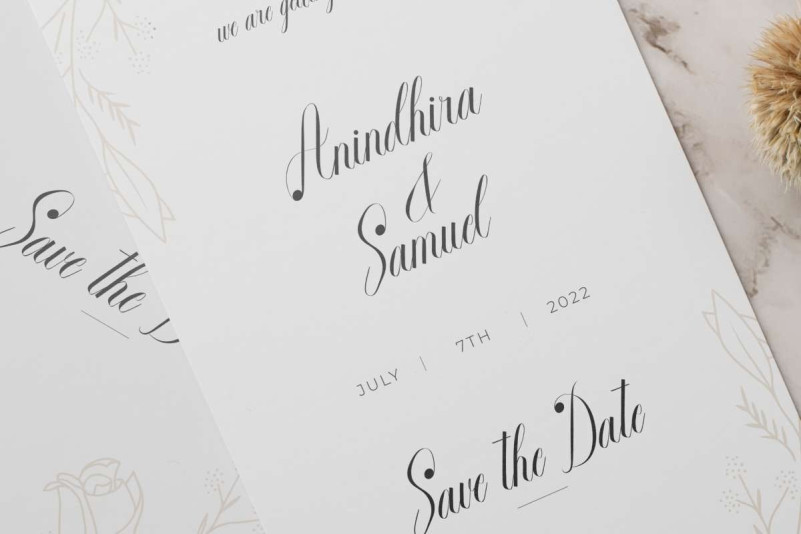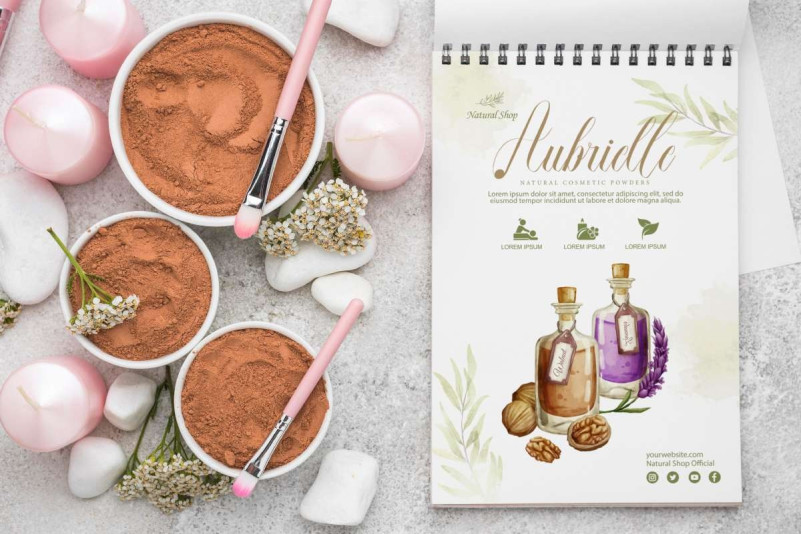
Kala Nirmala Script Font is a musical beautiful script font with unique letter shapes. This font has rounded corners forming a dot at the end of the letter which makes it stand out and suitable for any industry, such as beauty clinic, boutique, cosmetic, event organizer, flower shop, homeware, printing, publishing, restaurant, skin care product, spa, yoga and anything that needs a beautiful script.
Kala Nirmala Font comes with a full set of Uppercase and Lowercase Basic Characters, Number, a large range of Punctuation and Symbol. It has a stunning characters set, perfectly managed with well spaced and kerning. Kala Nirmala Font will be great for any projects (with extended license) including : billboard, brochure, calendar, content, invitation, product packaging, title, website, etc.
Kala Nirmala Font also adds a ligature character that will make two letters perfectly bound. Ready to use both on Windows machine or Mac with simple installations with multilingual characters supported. It’s tested to work well in the Adobe Apps (Illustrator, Adobe InDesign, Adobe Photoshop) even work on Microsoft Word. PUA Encode Characters means you can access all characters easily – Fully accessible without additional design software.